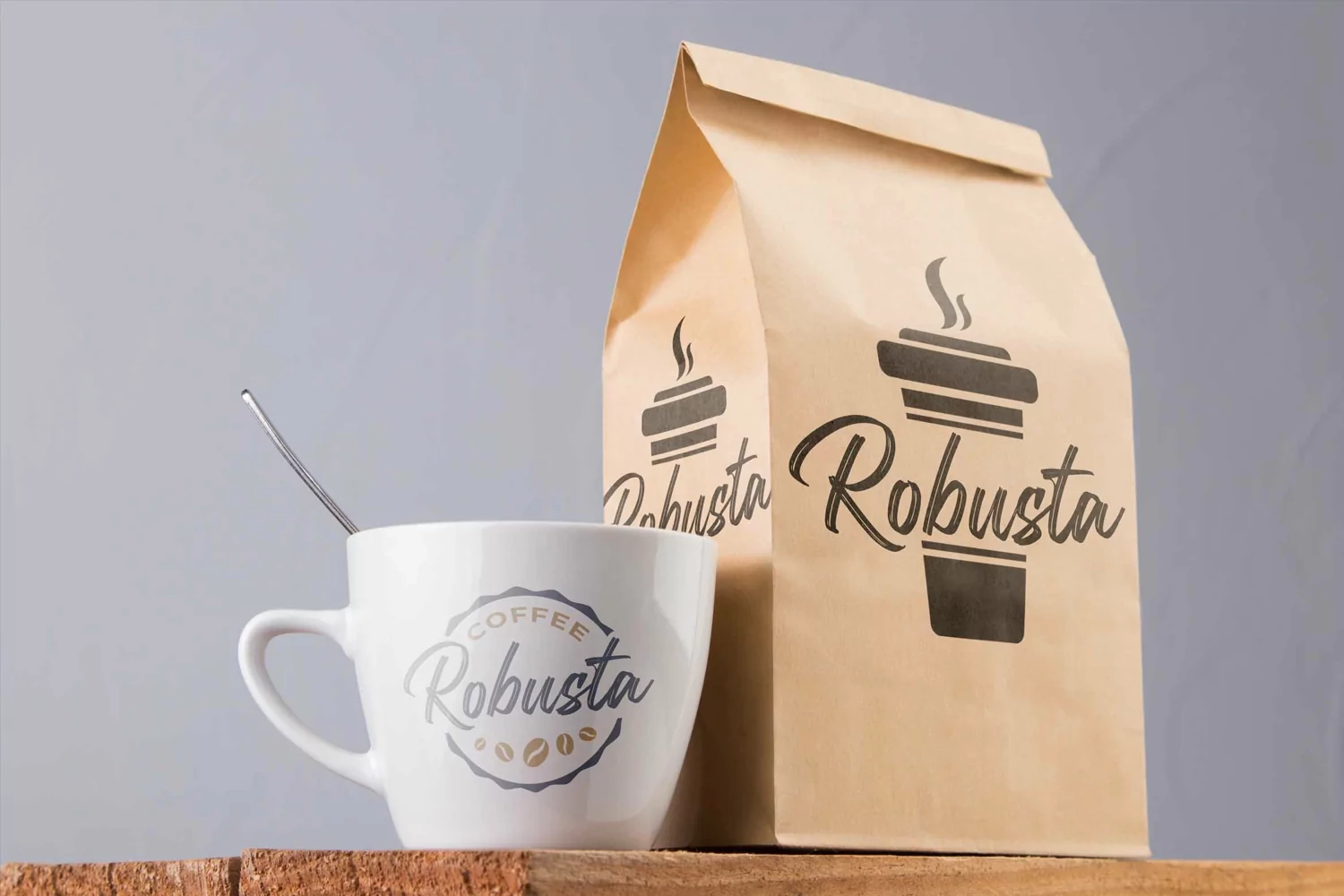
Introducing of our new product the name is Rastelay Wild Brush Font. Rastelay inspired by brush script this font is a fun theme very good for book cover, apparel, t-shirt, quote, logotype, craft and etc.